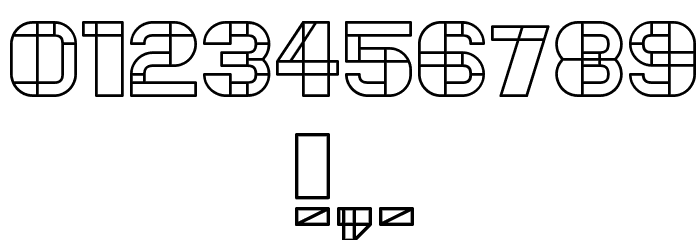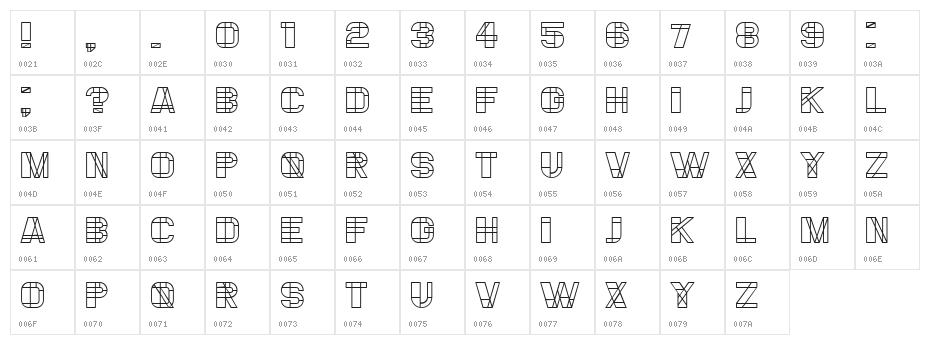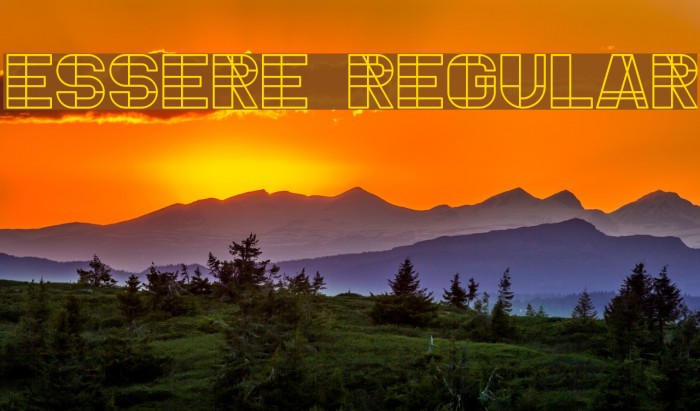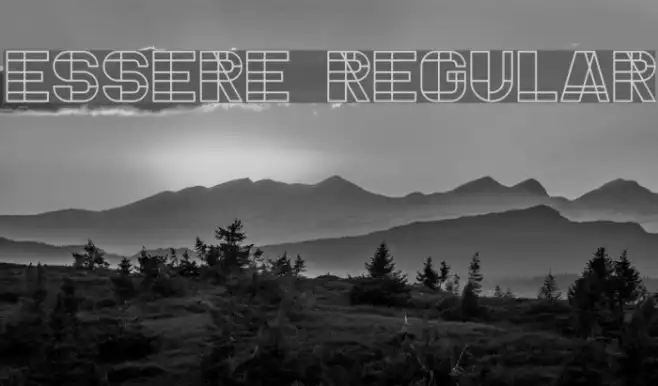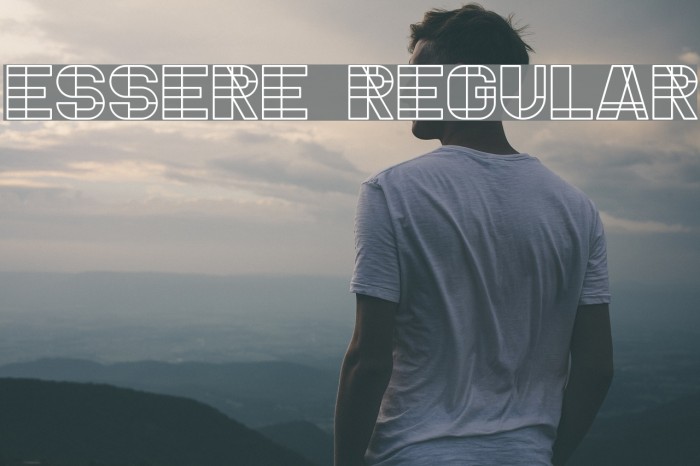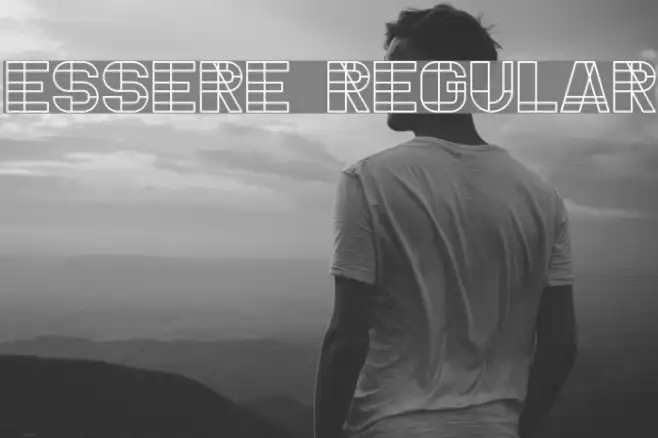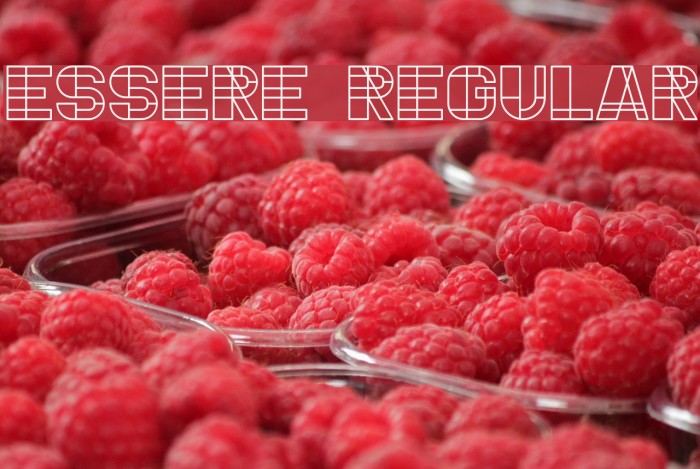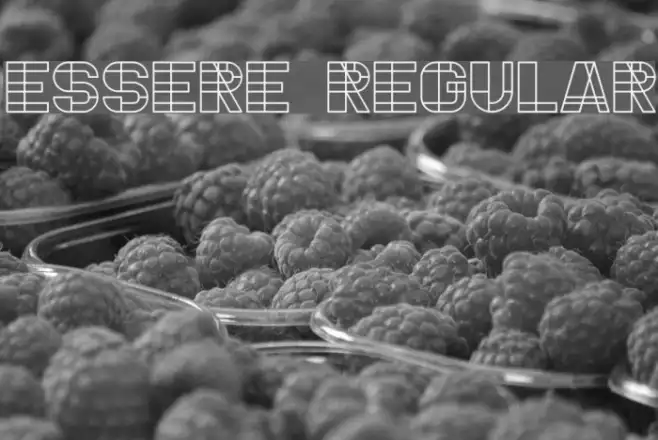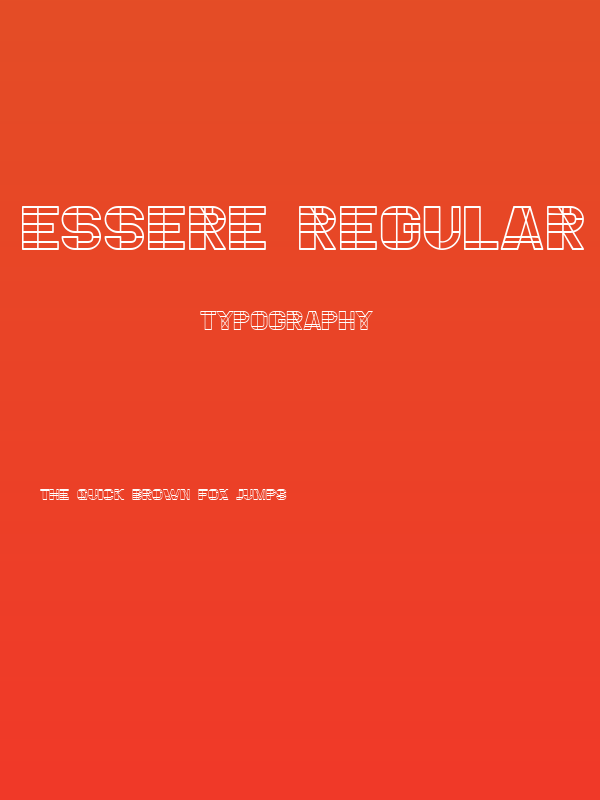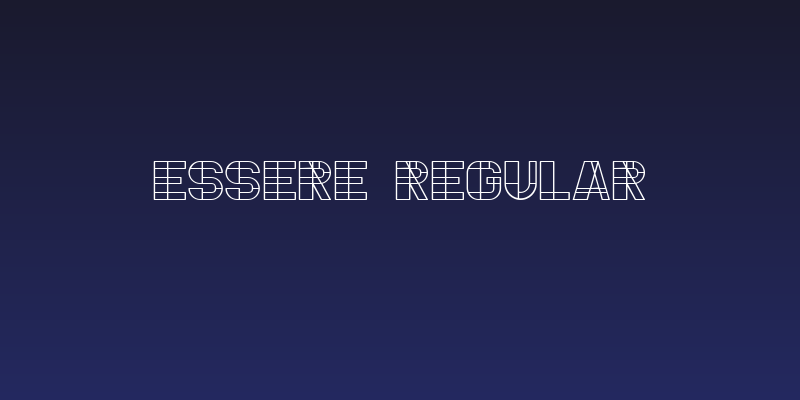
Essere Regular Font
Essere Regular Description
This font features a geometric and structured design, characterized by its use of overlapping lines and shapes to create a unique, grid-like appearance. The letters are formed with a series of intersecting lines that give a sense of depth and complexity, while maintaining a clean and modern aesthetic. The uppercase and lowercase letters share a consistent style, with numerals and special characters following the same design principles. This font's distinct look makes it suitable for projects that require a contemporary and artistic touch.
Use CaseLogos, Headlines, Artistic designs
Proposed ProjectsIdeal for branding, posters, album covers, and modern art projects.